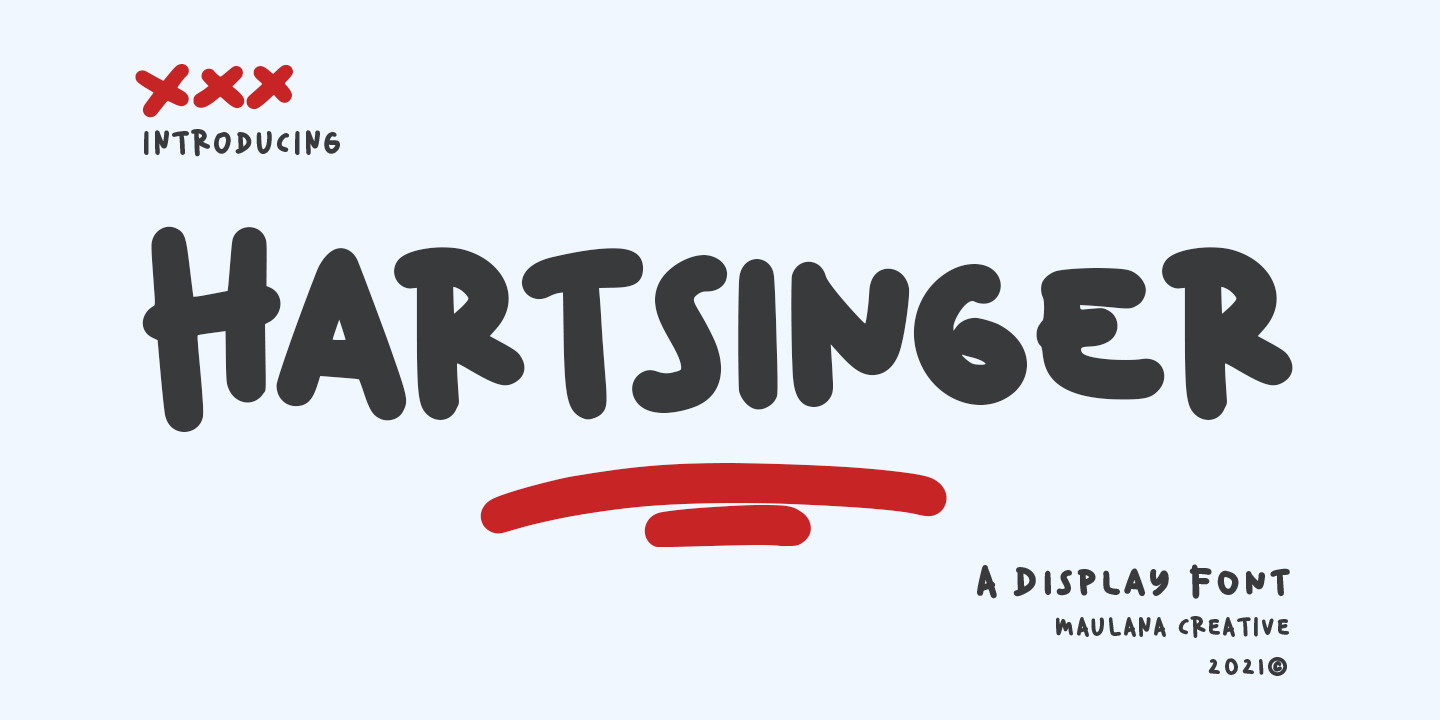
Hartsinger Font is ideal for romantic wedding stationery, love song album covers, poetry book design, heartfelt greeting cards, intimate cafe branding, acoustic music venue signage, emotional storytelling projects, personal memoir layouts, romantic photography portfolios, and sentimental brand identity design. This expressive typeface captures the essence of heartfelt emotion and lyrical beauty in contemporary design applications.
What makes Hartsinger Font exciting is its remarkable ability to convey deep emotional resonance and musical rhythm through typography. The font features flowing letterforms with melodic curves and expressive character variations that echo the gentle cadence of a heartfelt ballad. Its lyrical design language communicates love, passion, and authentic emotion, making it perfect for brands and projects seeking to create meaningful connections with audiences who appreciate genuine sentiment and poetic expression in their visual communications.
Hartsinger Font comes in melodious font families including Regular, Bold, Light, Script, Ornamental, and Decorative variations. Each family member maintains the signature emotional appeal while offering different stylistic approaches to accommodate various romantic design needs, from subtle love notes to bold declarations of passion that resonate with heartfelt authenticity.
Whether you're designing for romantic occasions or creating emotionally-driven brand experiences, Hartsinger Font Free Download provides the typographic foundation needed to touch hearts and souls. The font's lyrical character and emotional depth make it an excellent choice for designers working on projects that need to communicate love, passion, and genuine human emotion through typography that sings with the beauty of authentic heartfelt expression.